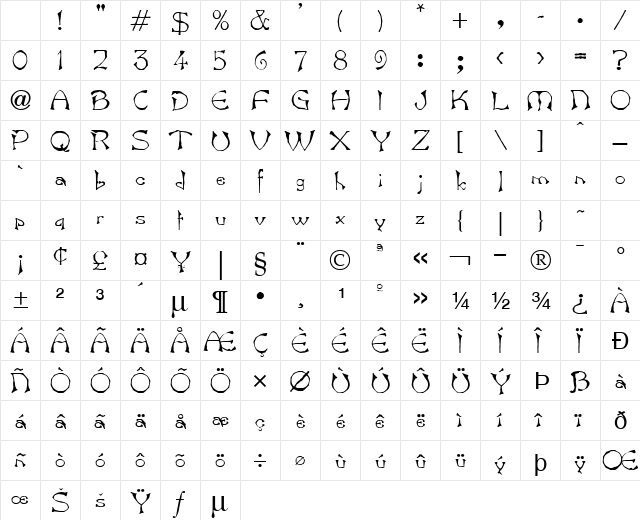
Complete Asian Normal glyph index. Displaying only characters natively supported by Asian Normal font.
Asian is a composed and adaptable typeface that performs quietly and consistently across a wide range of design contexts.